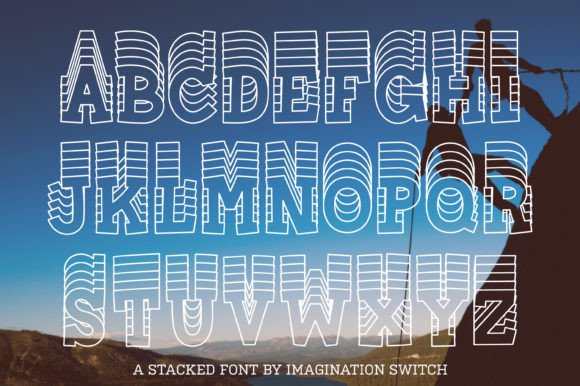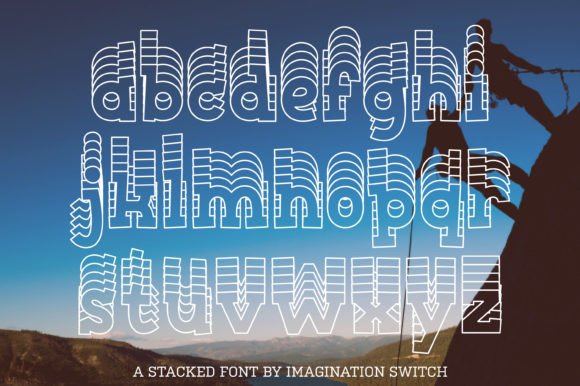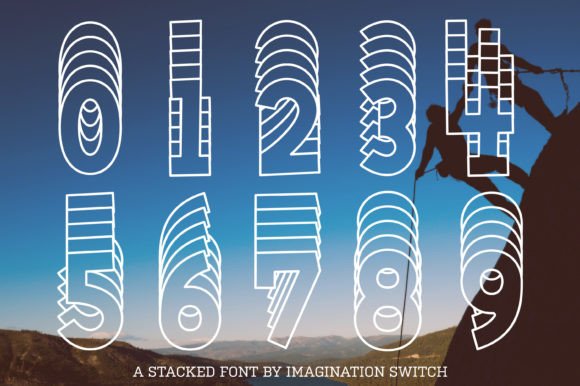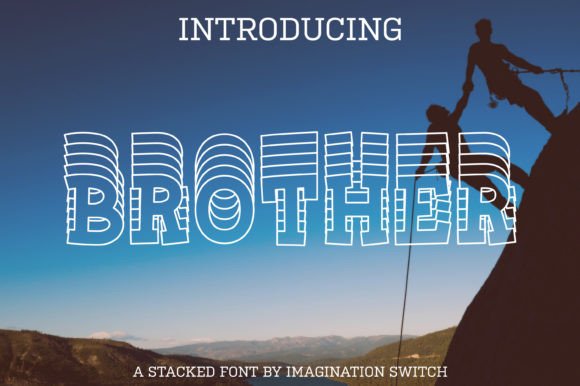
Introducing Brother Font: Elevate Your Designs with Elegant Stacked Style
In the world of typography, fonts play a crucial role in conveying messages, evoking emotions, and adding personality to designs. For designers and crafters seeking a unique and captivating font, Brother Font is an excellent choice. This display stacked font boasts an elegantly stacked style, making each letter appear dimensional and mesmerizing. In this article, we’ll explore the features, uses, and benefits of Brother Font, and why it’s an ideal addition to your typographic collection.
What is Brother Font?
Brother Font is a display stacked font designed to add a touch of sophistication and elegance to your designs. Its stacked style gives each letter a three-dimensional appearance, making it stand out from traditional fonts. The font’s unique design makes it perfect for various purposes and moods, from creative projects to corporate branding.
Key Features of Brother Font
- Elegantly Stacked Style: Brother Font’s stacked design gives it a distinctive look, making it perfect for headlines, titles, and emphasis text.
- Dimensional Appearance: The font’s layered style creates a 3D effect, adding depth and visual interest to your designs.
- Captivating and Engaging: Brother Font’s unique design makes it attention-grabbing, perfect for designs that need to stand out.
- Versatile: Suitable for various design projects, including logos, branding, posters, and more.
Uses of Brother Font
Brother Font’s versatility makes it suitable for a wide range of design projects, including:
- Logos and Branding: Create a lasting impression with a unique and memorable logo.
- Posters and Flyers: Add a touch of elegance to your promotional materials.
- Social Media Graphics: Stand out on social media with eye-catching graphics and typography.
- Packaging Design: Elevate your product packaging with a distinctive and captivating font.
Benefits of Using Brother Font
By incorporating Brother Font into your design projects, you’ll enjoy several benefits:
- Unique and Memorable: Brother Font’s distinctive design makes it easy to create memorable and engaging designs.
- Time-Saving: The font’s versatility saves you time and effort in finding the perfect typography for your project.
- Professional Look: Brother Font’s elegant design gives your projects a professional and polished appearance.
Tips for Using Brother Font Effectively
To get the most out of Brother Font, follow these tips:
- Use it Sparingly: Brother Font’s bold design makes it best suited for headlines and emphasis text.
- Experiment with Colors: Try different color combinations to enhance the font’s 3D effect.
- Pair it with Other Fonts: Combine Brother Font with complementary fonts to create visual interest.
Brother Font is a unique and captivating display stacked font that can elevate your designs to the next level. Its elegantly stacked style, dimensional appearance, and versatility make it suitable for various design projects and moods. By incorporating Brother Font into your typographic collection, you’ll have a powerful tool to create memorable and engaging designs. Whether you’re a designer or crafter, Brother Font is an excellent choice for adding a touch of sophistication and elegance to your work.